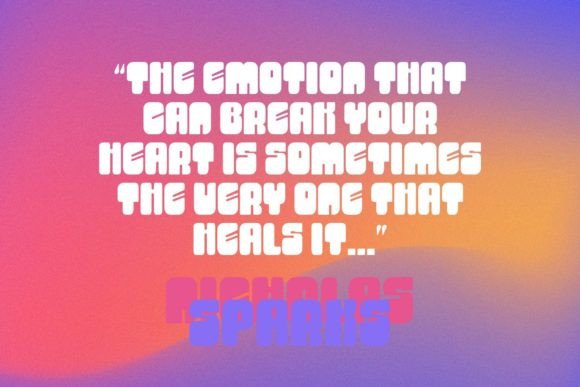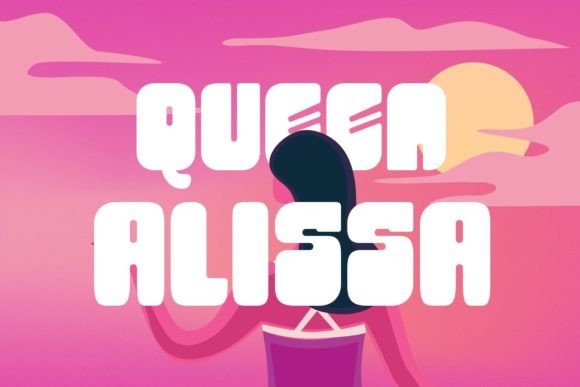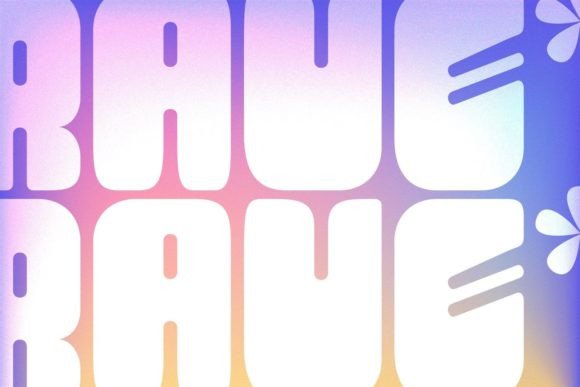
Introduction to Kasa Green Font
Kasa Green is a fancy display font with bold contrast stroke, fun characters with a bit of ligature, and alternates to give you extra creative work.
Kasa Green is good for logo design, Social media, Movie Titles, Books Titles, short text, and even long text, and good for your secondary text together with a sans or serif Make a stunning work with Kasa Green.